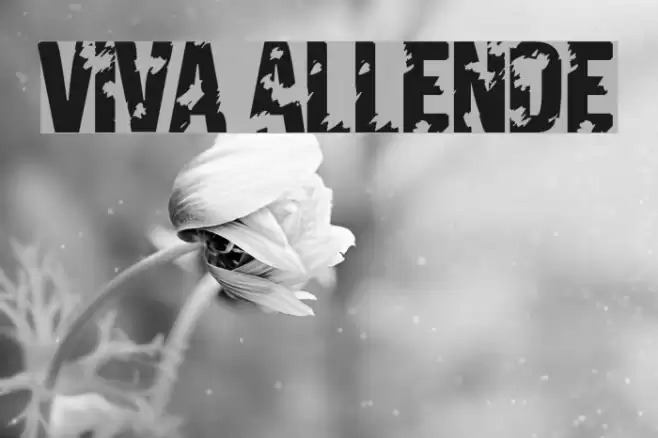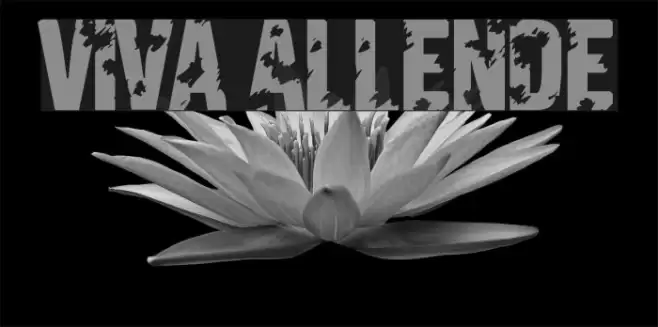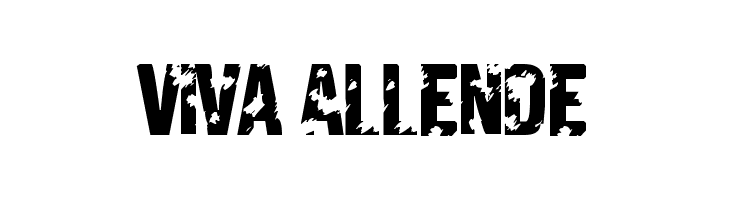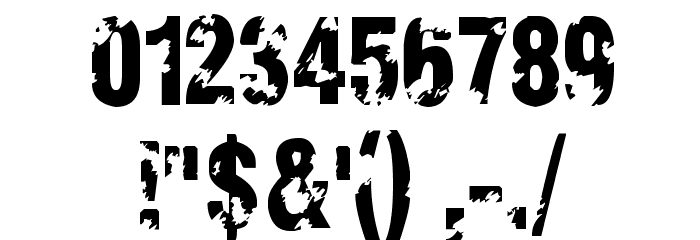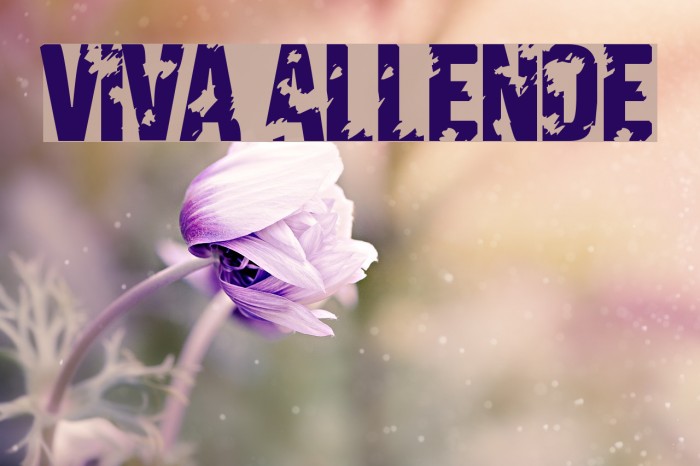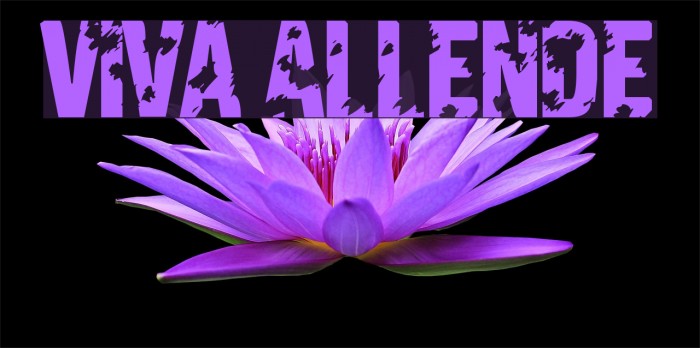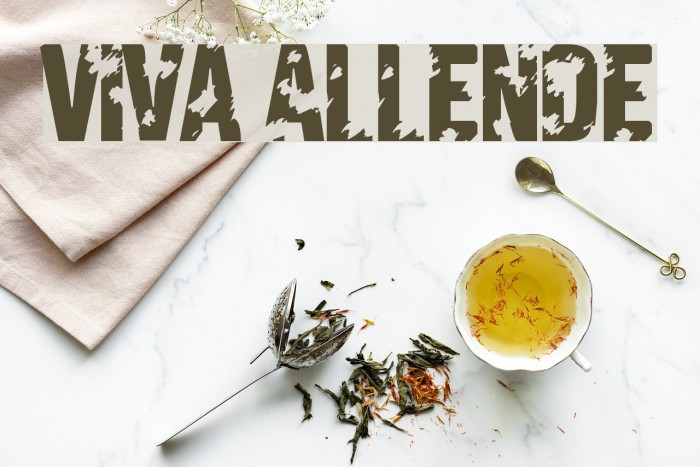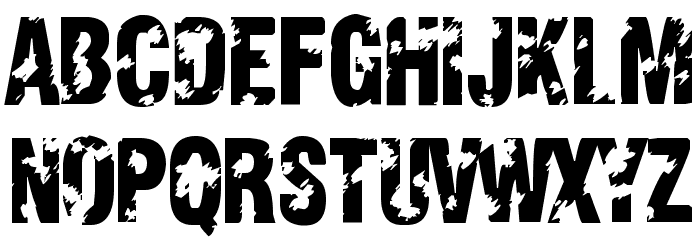
Viva Allende Font
Viva Allende Description
This font features a bold and distressed style, with a rugged and worn appearance that gives it a unique character. The letters are heavily textured, resembling a weathered or eroded surface, which adds a sense of depth and dynamism. The uppercase and lowercase letters maintain a consistent weight, while the numbers and special characters follow the same distressed theme. This font is ideal for projects that require a strong, impactful visual statement, such as posters, album covers, or branding that seeks to convey a sense of rebellion or edginess.
A bold, distressed font with a rugged, textured appearance from Sans Serif fonts.
- Proposed Projects: Ideal for posters, album covers, rebellious branding, or any project needing a strong visual impact.